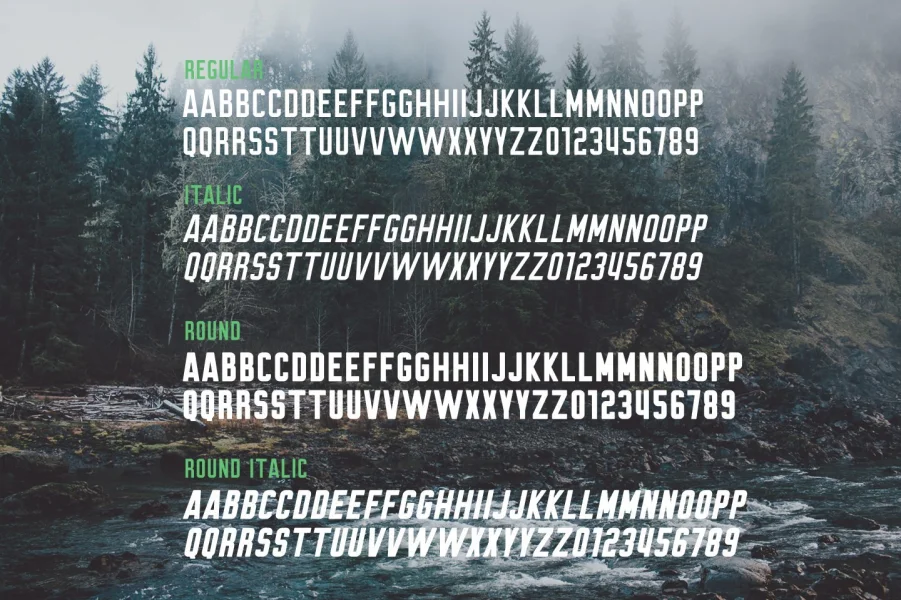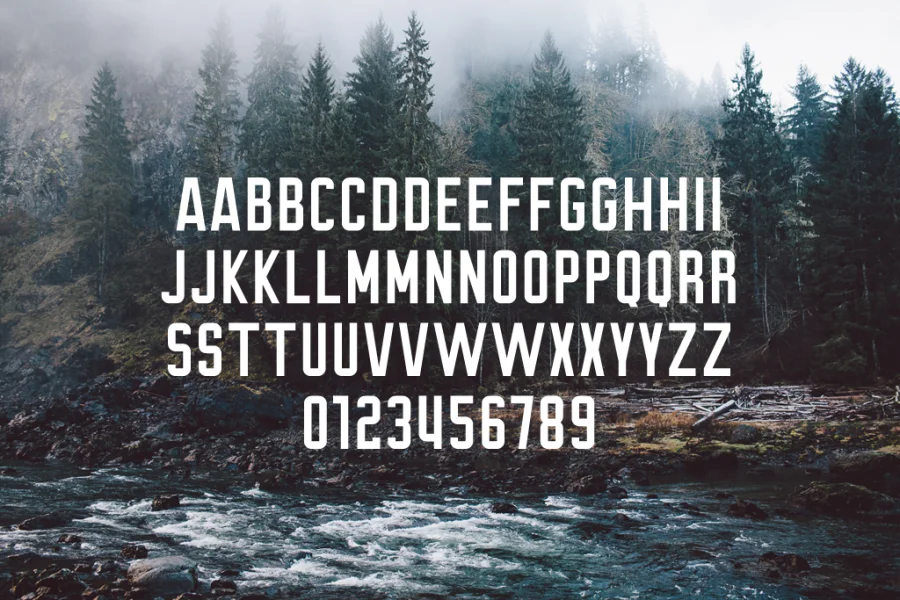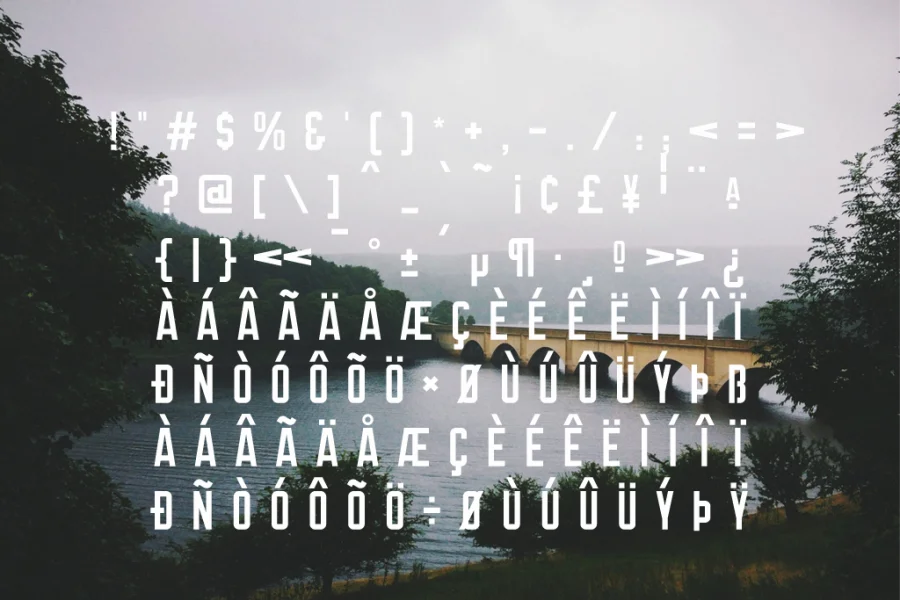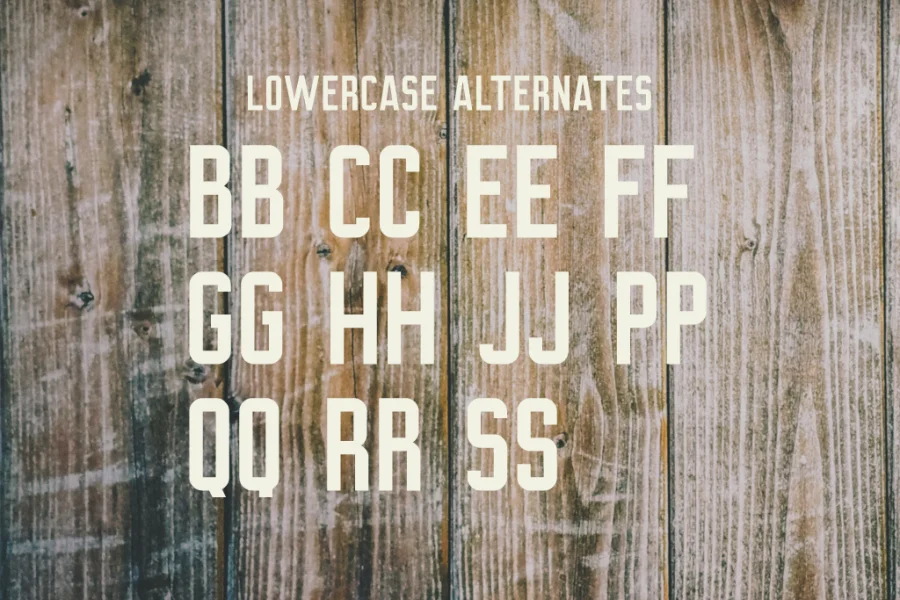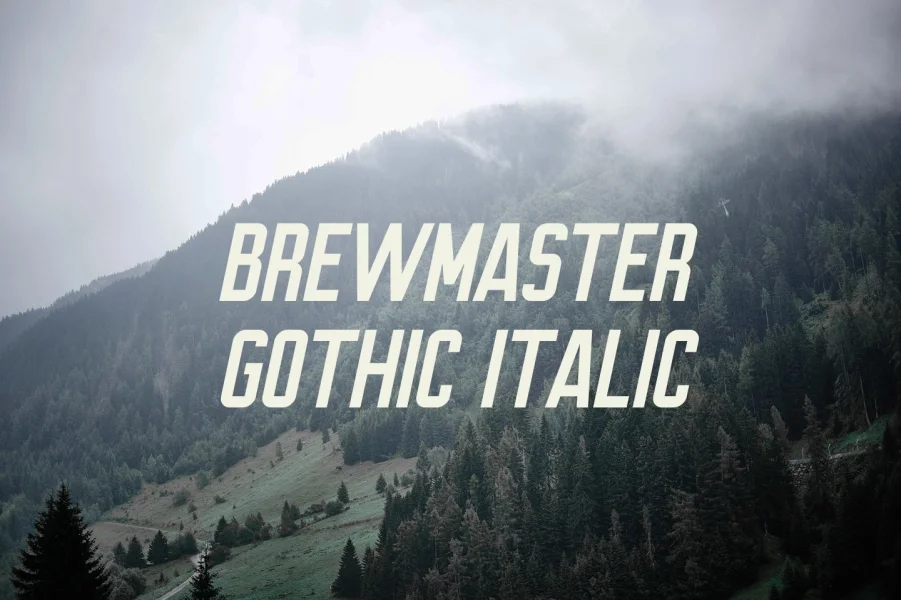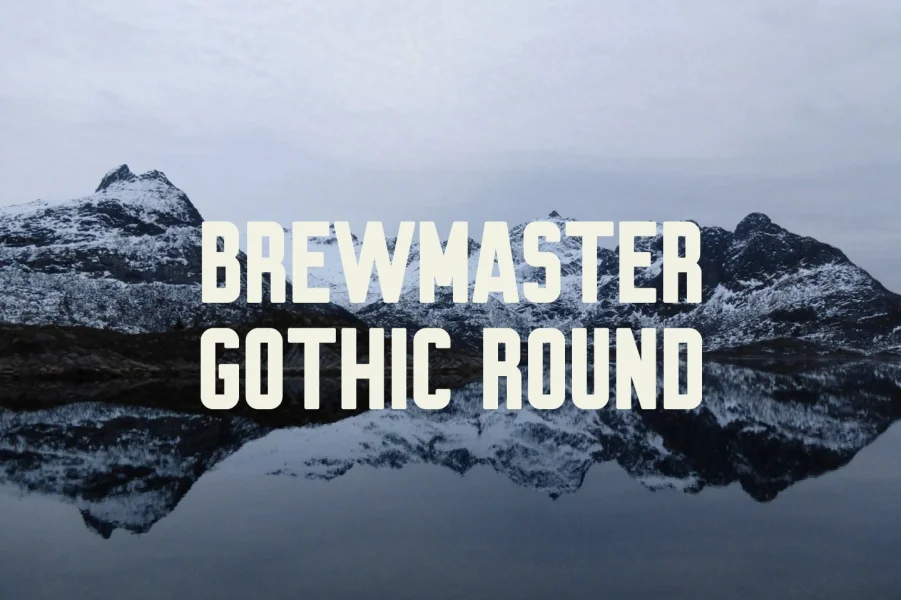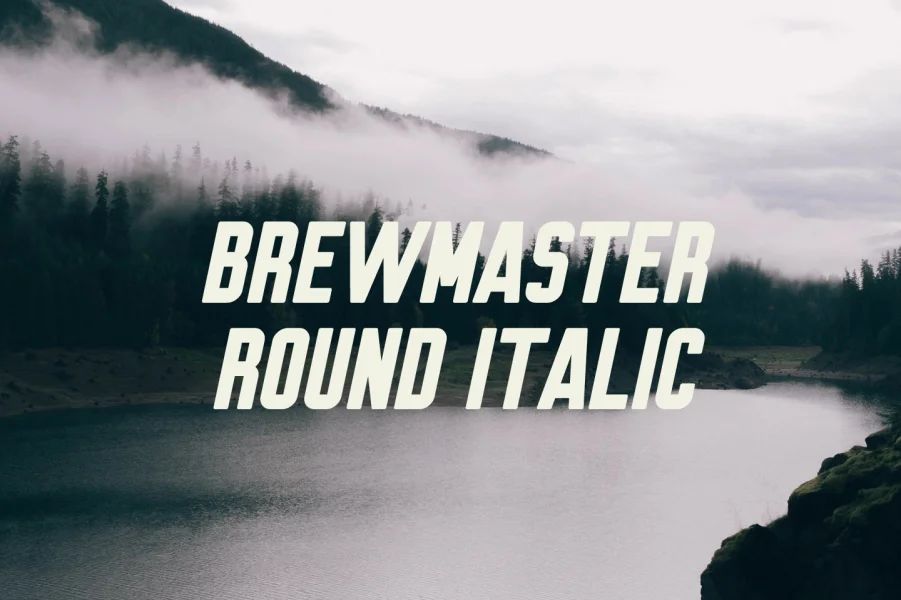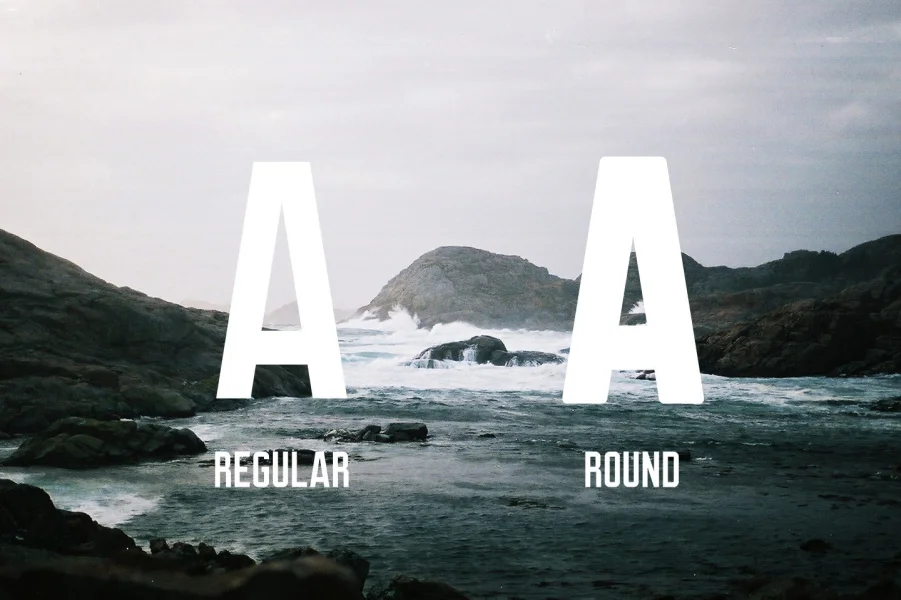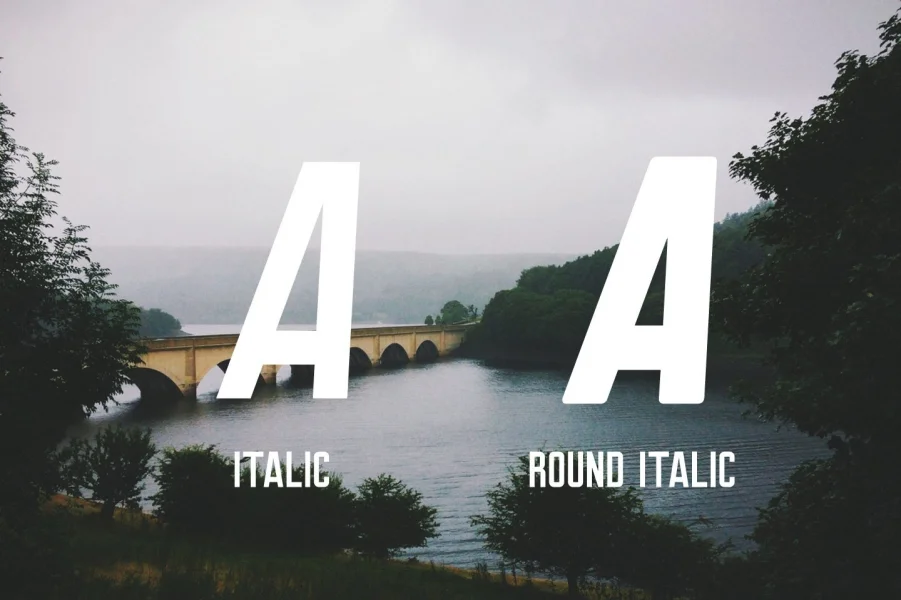
In our hometown, there is a brew pub with a huge outdoor mural featuring its name. The brew pub name is painted in 8-foot tall letters on the brick facade over it's outdoor patio. To create Brewmaster Gothic, we took inspiration from that mural and applied it to our Turbonacular font, replacing the rounded edges with square corners and angles lines.
The end result is a firm, structured gothic with a lot of character, a huge complement of accented and special characters, full punctuation set, and an alternate set of uppercase characters in the lowercase. Our latest modification of Brewmaster Gothic features rounded edges and corners. Wonderful!